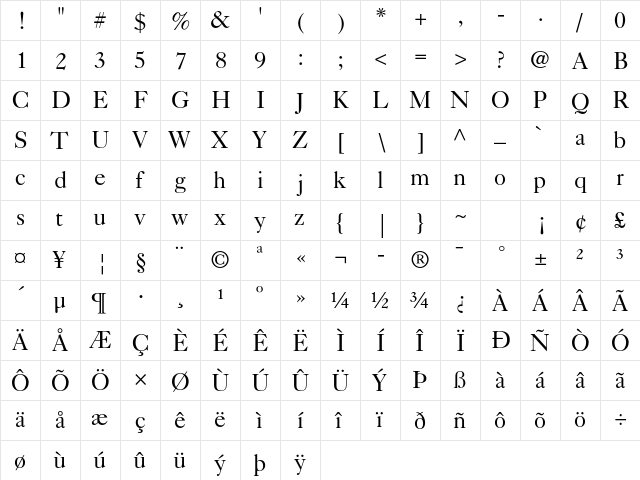
Caslon 540 LT Std Roman
| Designer | American Type Founders Staff |
Design Context for Caslon 540 LT Std Typeface
Caslon 540 LT Std takes a measured approach to typography — its balanced proportions and neutral character make it a reliable workhorse for both digital and print work. Its slender proportions lend an understated elegance to any composition.